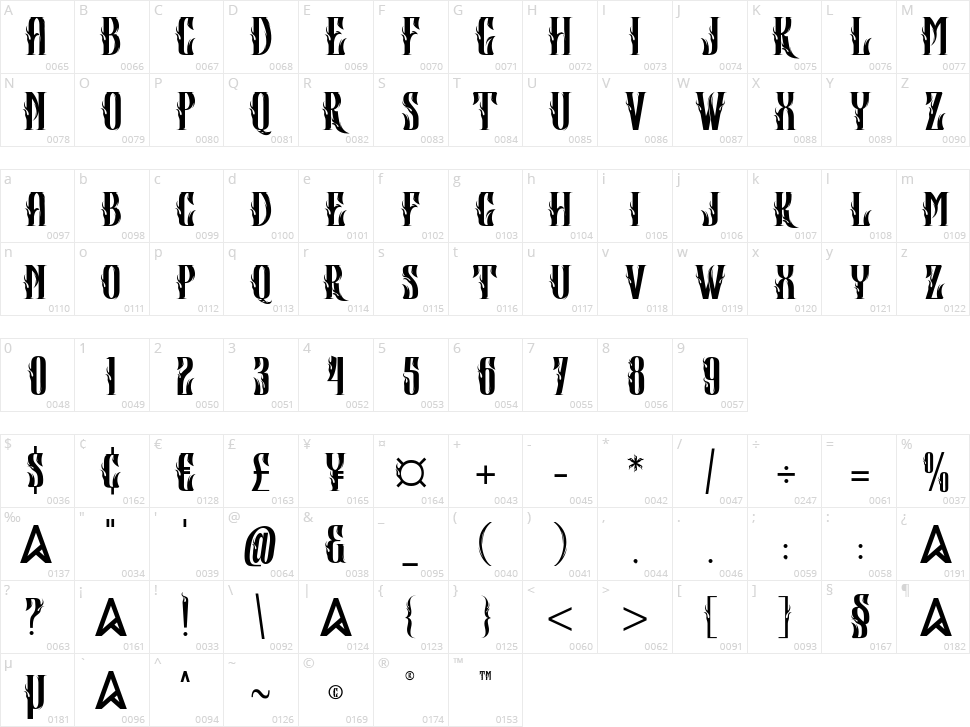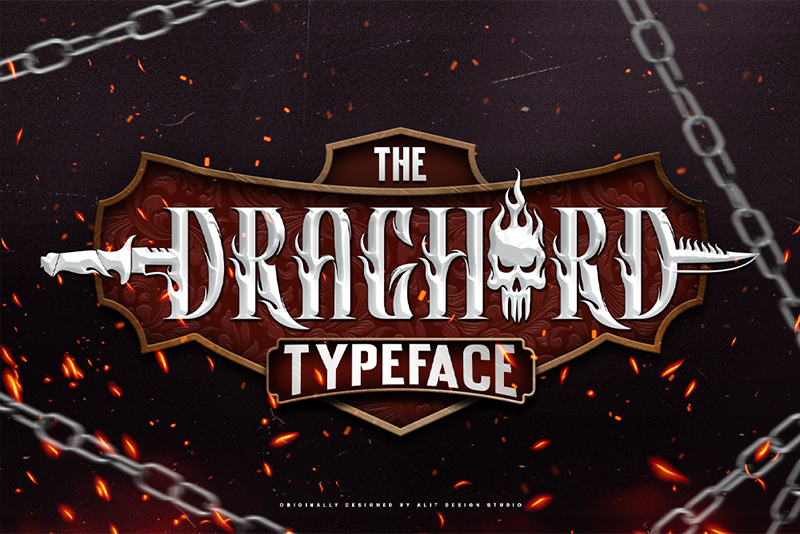
Draghord
Introducing Draghord, a bold and dynamic typeface that embodies the essence of superheroic power and adventure. This font is a visual journey into the realm of fire, swords, skulls, and wings, capturing the spirit of mighty heroes and formidable villains alike.